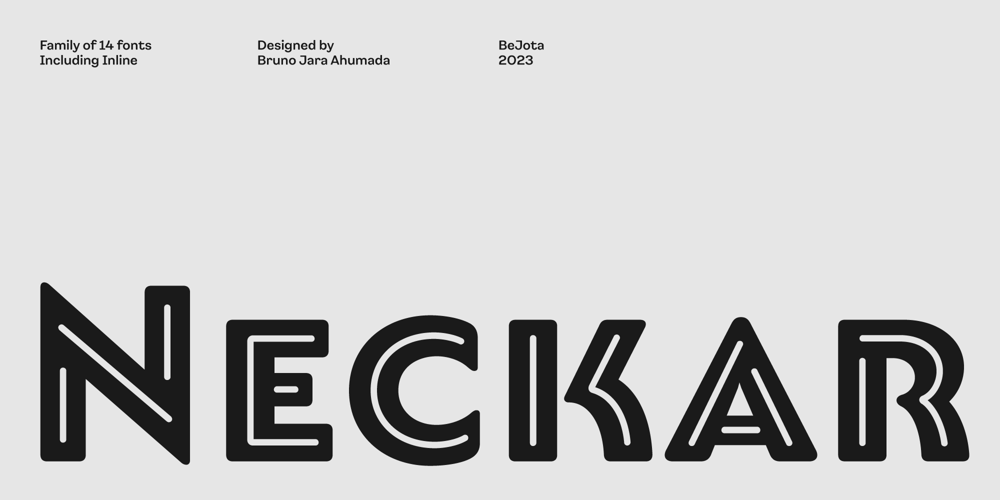
Neckar
Neckar font
Neckar Font Family was designed by Bruno Jara Ahumada and published by BeJota. Neckar contains 14 styles and family package options. Neckar takes its name from the German river. Its rounded corners and classic geometric proportions ensure that your graphic piece will stand out.The Neckar family is available in 6 weights ranging from Thin to Black, and includes 2 different subfamilies: Neckar and Neckar Poster. In addition, thanks to the “inline” version, Neckar is ideal for designing high-impact graphic pieces. Neckar includes small caps figures (symbols, letters and numbers).